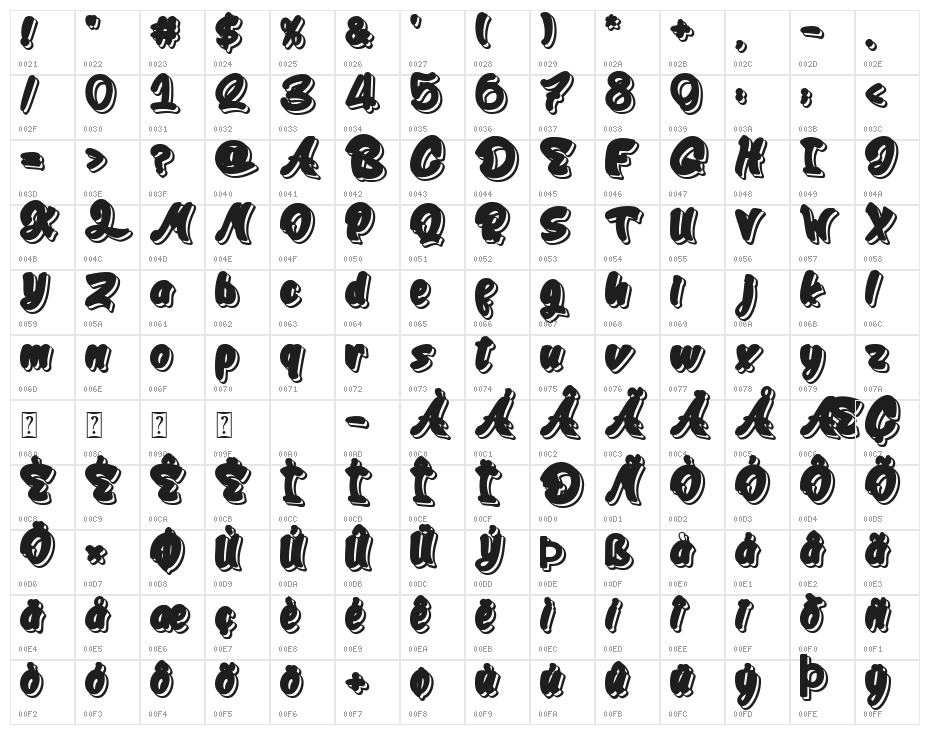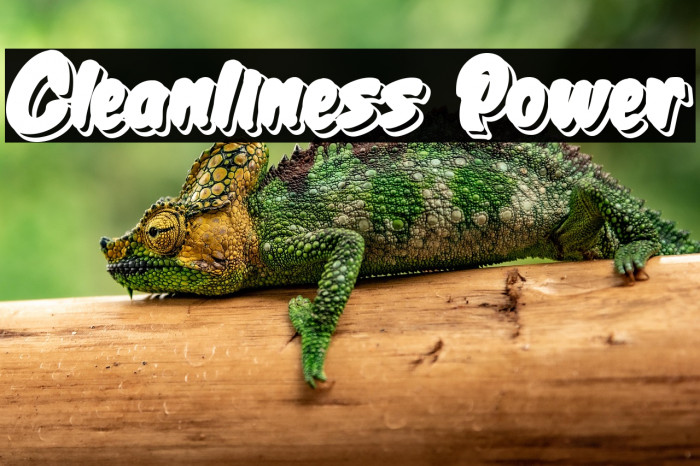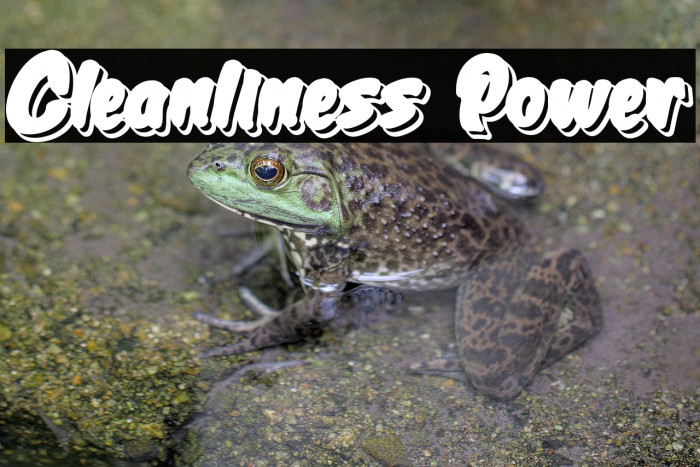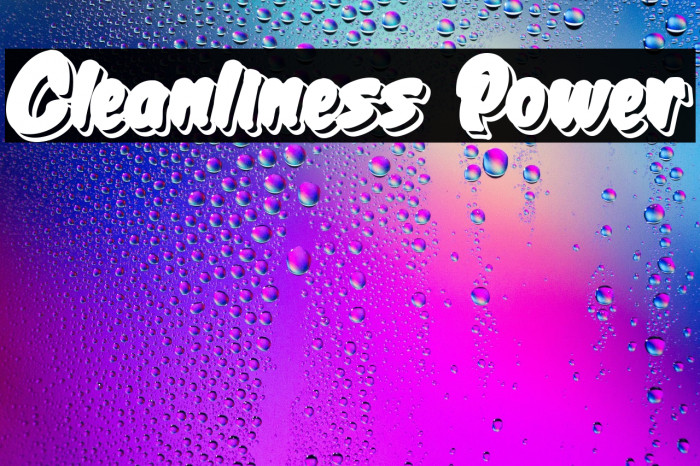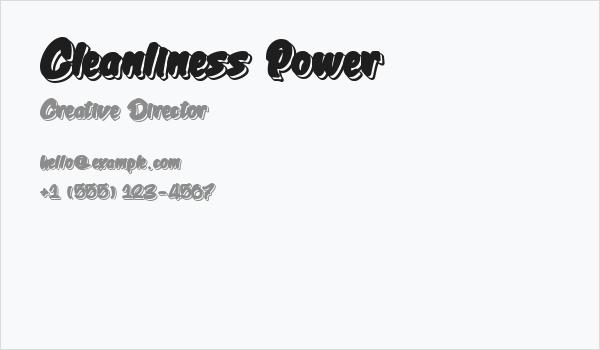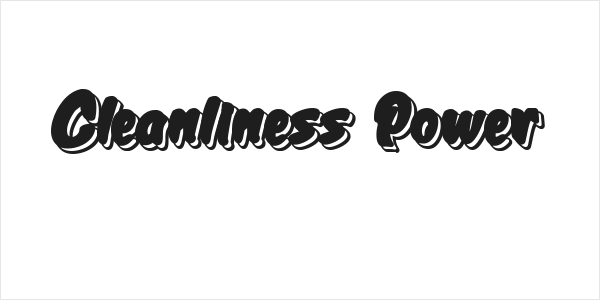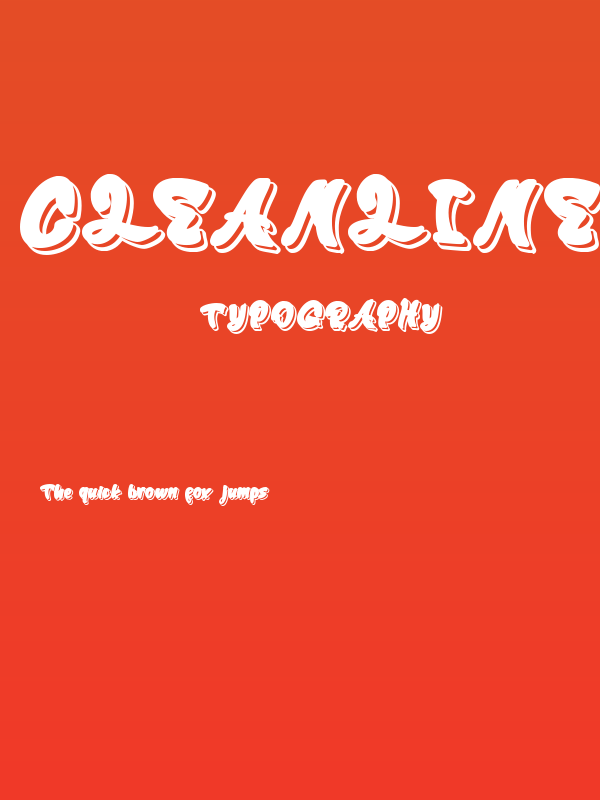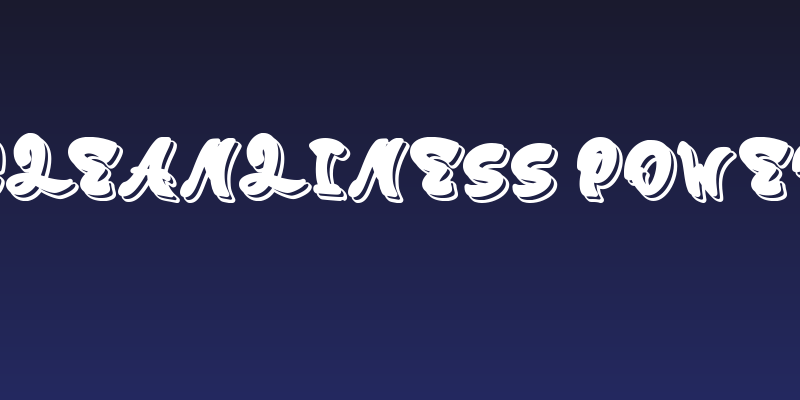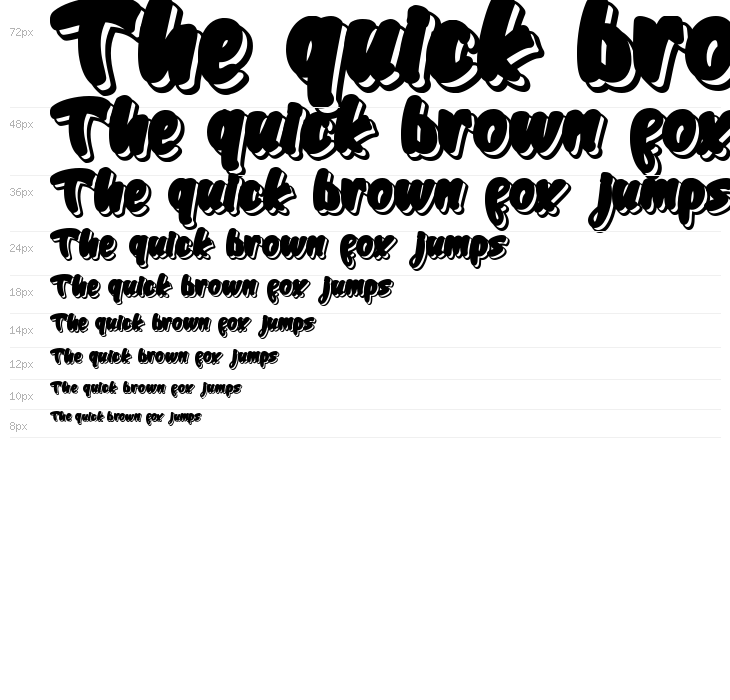
Cleanliness Power Font
Cleanliness Power Description
This bold and playful font features a thick, rounded style with a strong shadow effect that gives it a three-dimensional appearance. The characters are highly stylized, with exaggerated curves and a dynamic flow that adds a sense of movement and energy. The uppercase and lowercase letters maintain a consistent weight, creating a cohesive look. The numbers and special characters follow the same design principles, ensuring uniformity across all glyphs. This font's unique style makes it stand out, ideal for projects that require a fun and eye-catching typeface.